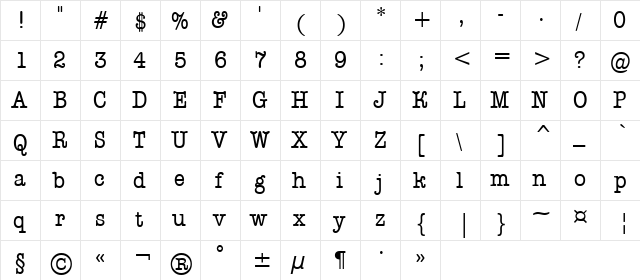
a_OldTyperNr Regular
Design Context for a_OldTyperNr Typeface
a_OldTyperNr offers clean, dependable letterforms without strong stylistic allegiance, making it a practical choice for designers who need flexibility.
Pro Tip: Use a_OldTyperNr in both headline and body roles to test its range before committing to a single application.